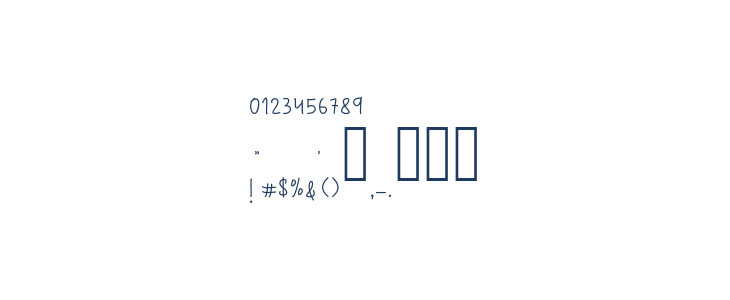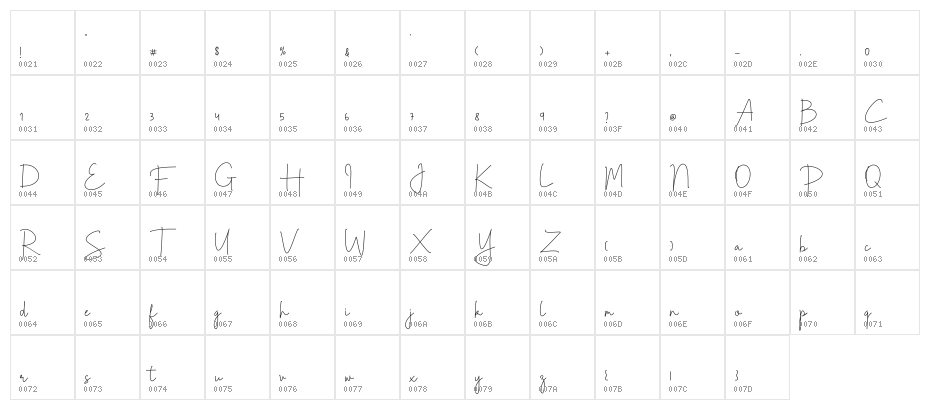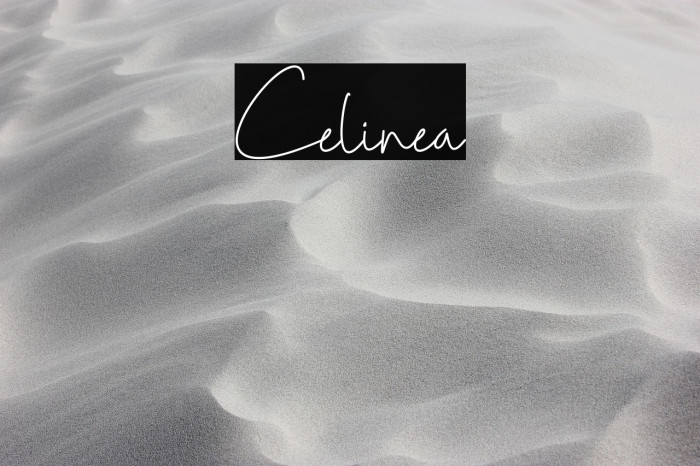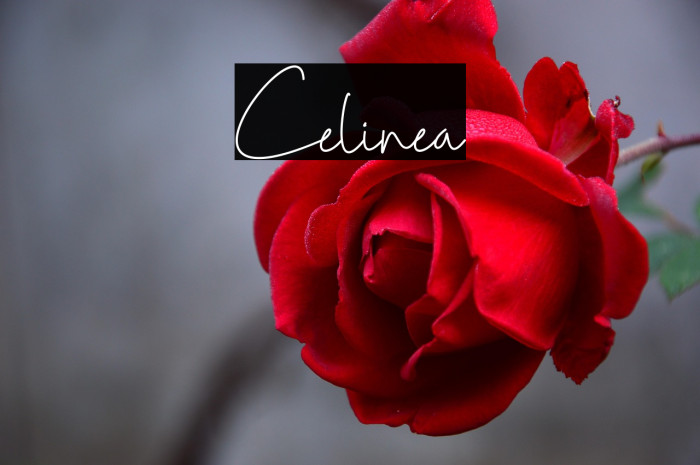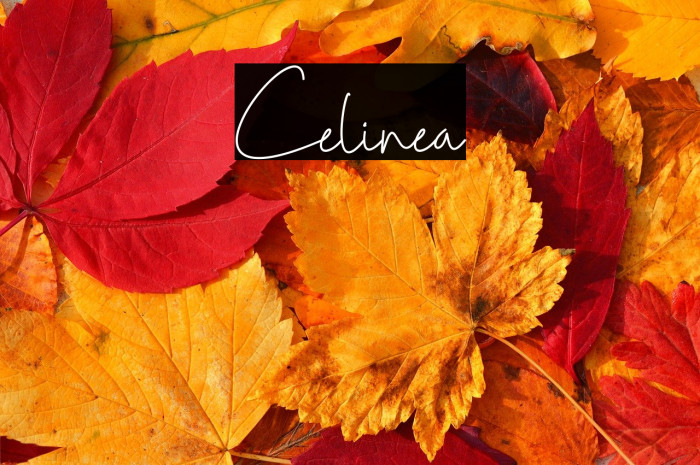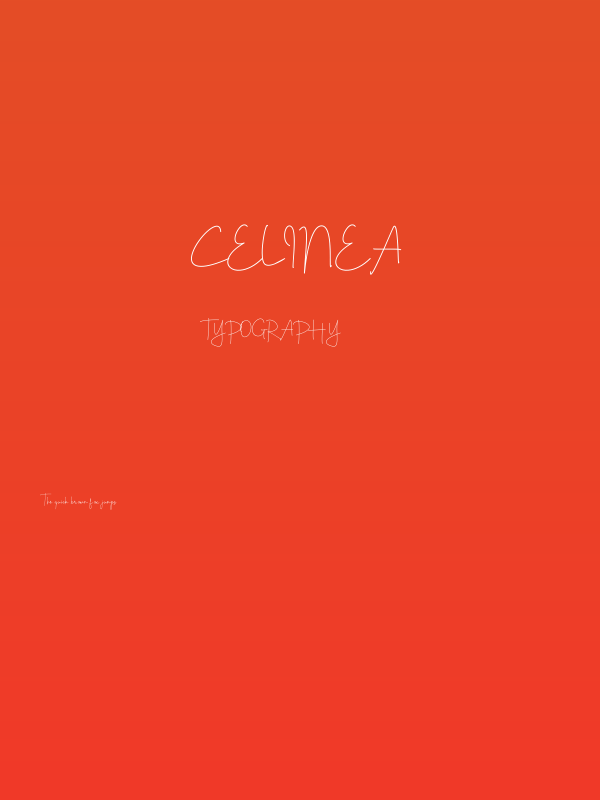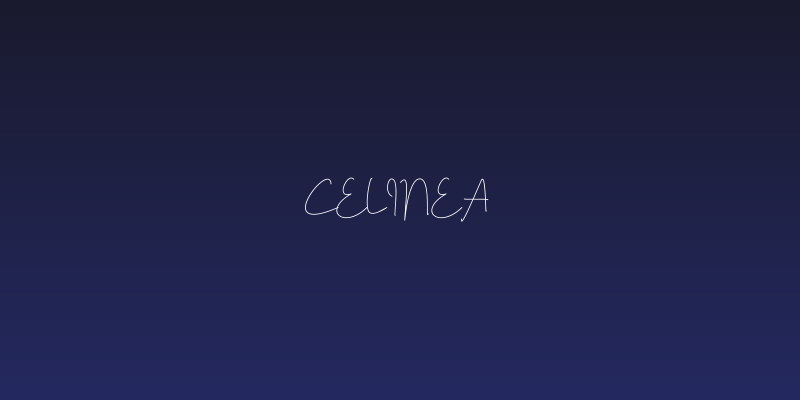
Celinea Font
This font features a delicate and elegant handwritten style, characterized by its thin, flowing lines and graceful curves. The uppercase letters are tall and slightly angular, giving a modern yet sophisticated appearance. The lowercase letters maintain a consistent fluidity, enhancing the overall script-like quality. Numbers and special characters are designed with the same attention to detail, ensuring a cohesive look across all elements. The font's airy and open design makes it suitable for projects that require a touch of elegance and personal flair.
| Proposed Projects | Ideal for wedding invitations, personal branding, greeting cards, and elegant packaging designs. |